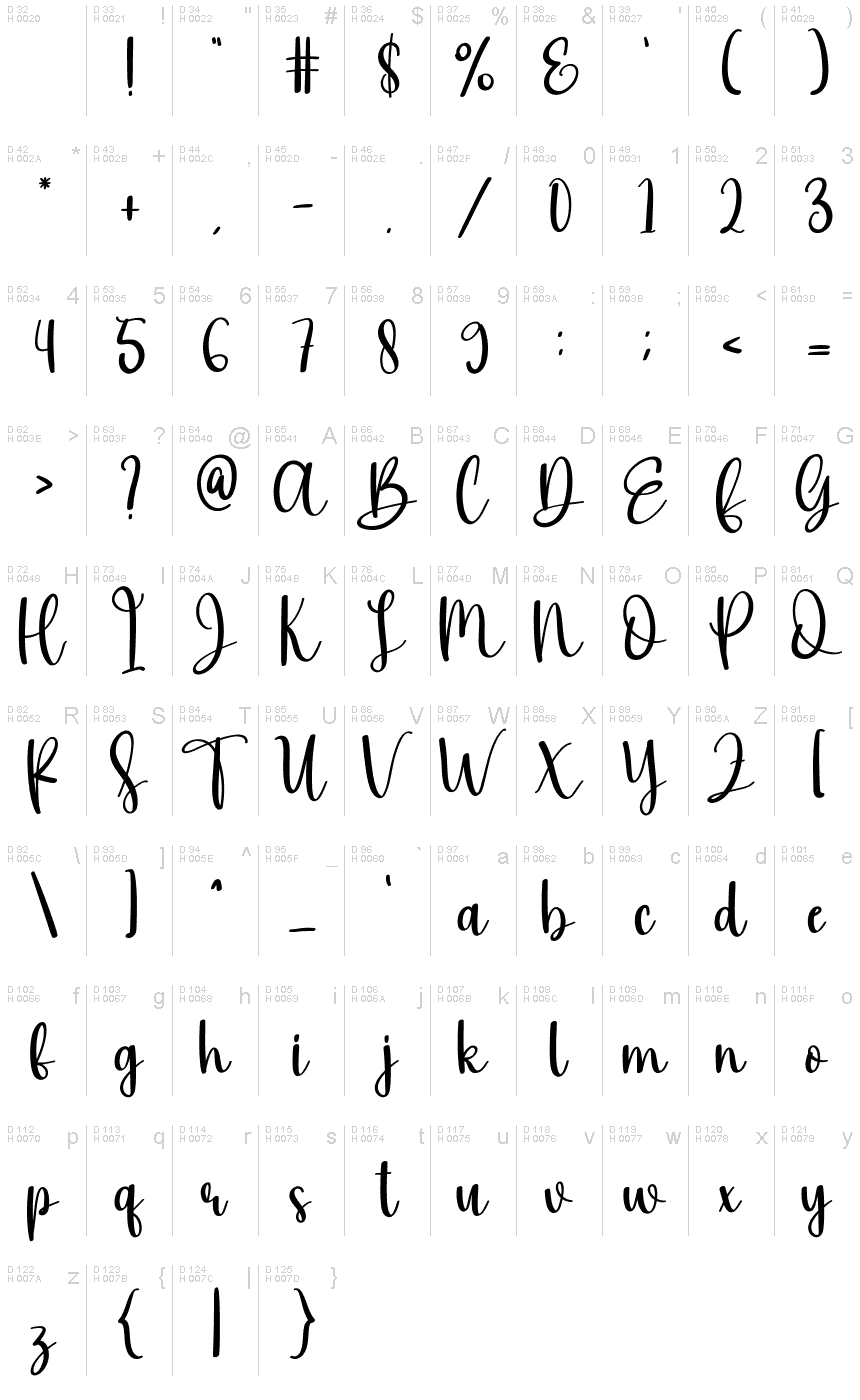
Vintage Handmade
Vintage Handmade font, designed by Scratchones, exudes a charming handwritten aesthetic. With its semi-light weight, this font adds a touch of elegance to any project.
Perfect for invitations, greeting cards, and wedding stationery, this font effortlessly captures the essence of nostalgia and whimsy. Its versatile style also lends itself well to branding materials for boutique businesses or artisanal products. Whether you're designing vintage-inspired logos or creating custom t-shirts with a retro flair,
Vintage Handmade is the ideal choice for adding an authentic handcrafted feel to your creative endeavors.
Rhe latest style letters are perfect for wall displays, wedding invitations, social media post logos, advertisements, product packaging, product designs, labels, photography, watermarks, invitations, stationery, and any project that requires taste handwriting.